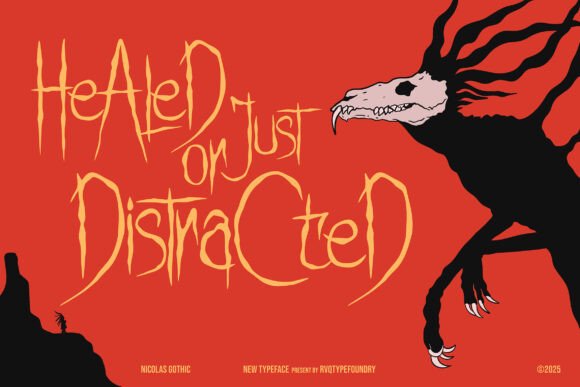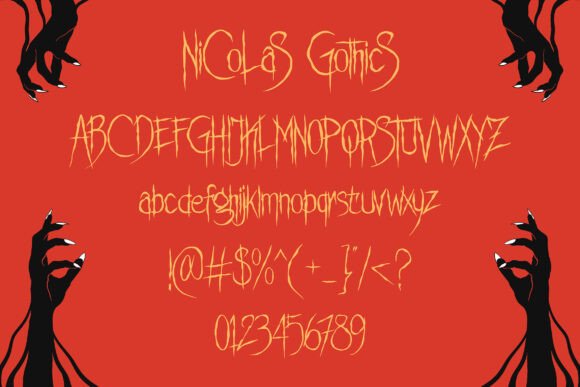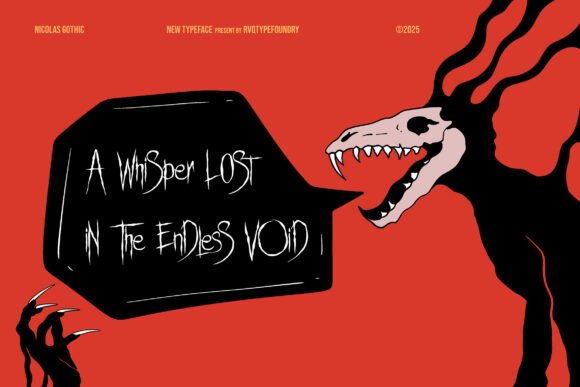
Introduction to Nicolas Gothics Font
As a designer, have you ever found yourself stuck in the middle of a creative project, searching for that one font that captures the essence of your dark fantasy novel or horror movie poster? I know I have. It’s like searching for a needle in a haystack, until one day, I stumbled upon the Nicolas Gothics Font. This spine-chilling display font has been a game-changer for me, and I’m excited to share its awesomeness with you.
With its jagged, elongated strokes and eerie hand-drawn characters, the Nicolas Gothics Font is the perfect addition to any design resource. Its scratchy, gothic style commands attention and sets a haunting tone, making it a valuable asset for designers looking to create high-quality designs for their creative projects.
Key Features of Nicolas Gothics Font
- Unique Gothic-inspired design ideal for creative projects requiring a touch of elegance and sophistication.
- Designed to be highly legible and versatile, making it suitable for various design applications, from print to digital media.
Honest Review: Nicolas Gothics Font
I recently stumbled upon the Nicolas Gothics Font, a free design resource that caught my attention for its unique, gothic-inspired aesthetic. As a designer, I appreciate high-quality fonts that can elevate my creative projects.
Here are some aspects that work well for the Nicolas Gothics Font:
- ✨ Unique, gothic-inspired design that sets it apart from other fonts.
- ✨ Can be used for a wide range of creative projects, from posters to brochures and even digital displays.
However, there are a few limitations I’d like to point out:
- ⚠️ The font’s design may not be suitable for all types of projects, particularly those requiring a more modern or minimalist aesthetic.
Overall, I think the Nicolas Gothics Font is a great addition to any designer’s toolkit, especially for creative projects that require a touch of elegance and sophistication. Its unique design and free availability make it a compelling choice, despite some minor limitations.
The Nicolas Gothics Font is a high-quality design resource that can add a unique touch to your creative project. To get the most out of it, consider using it with a transparent background to create a striking visual effect. You can also experiment with different font sizes and styles to create a visually appealing combination.
The Nicolas Gothics Font is ideal for use in creative projects such as logo designs, social media graphics, and marketing materials. Its unique Gothic-inspired design makes it perfect for adding a touch of elegance and sophistication to your design.
Is the Nicolas Gothics Font suitable for high-quality print projects?
Yes, the Nicolas Gothics Font is designed to meet high-quality print standards, making it an excellent choice for commercial printing applications, such as business cards, brochures, and signage. The font’s high-resolution design ensures crisp and clear typography, even at large font sizes.